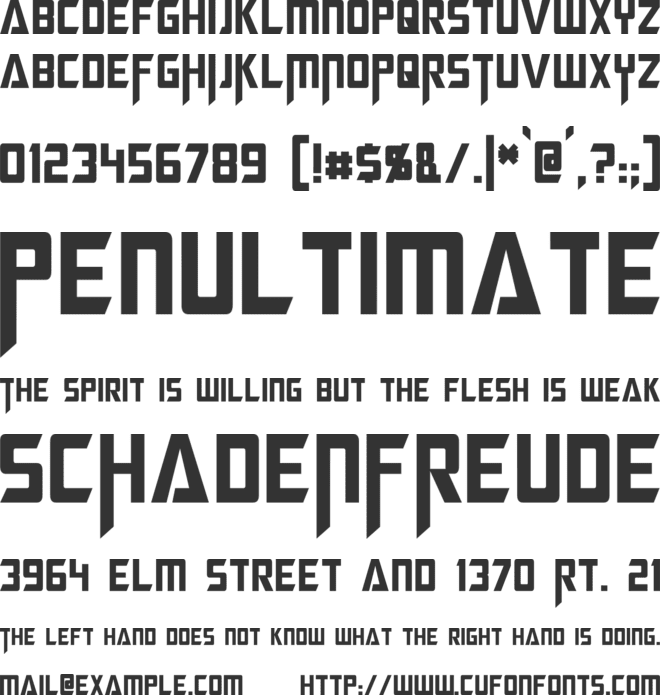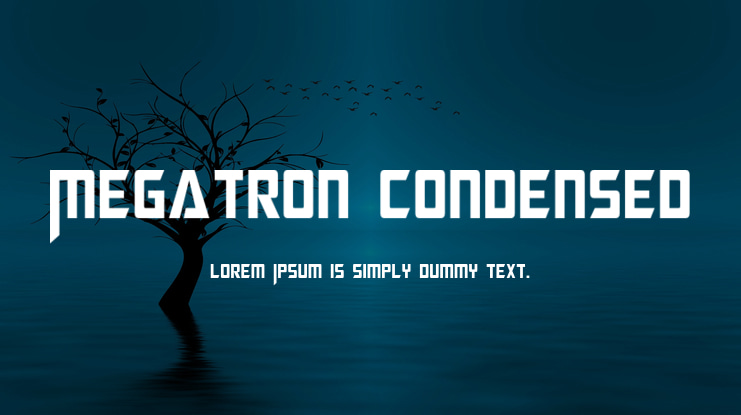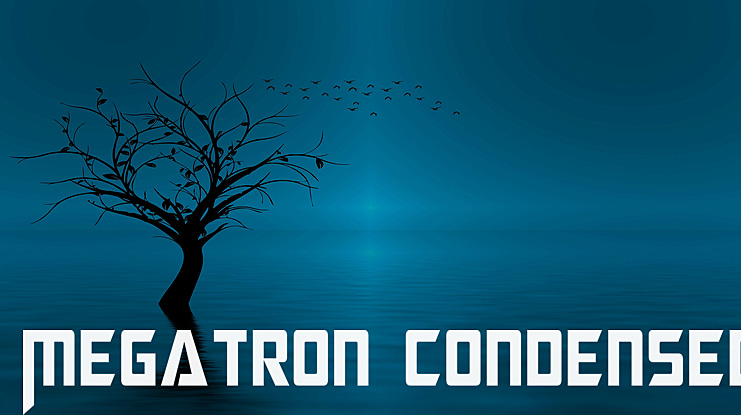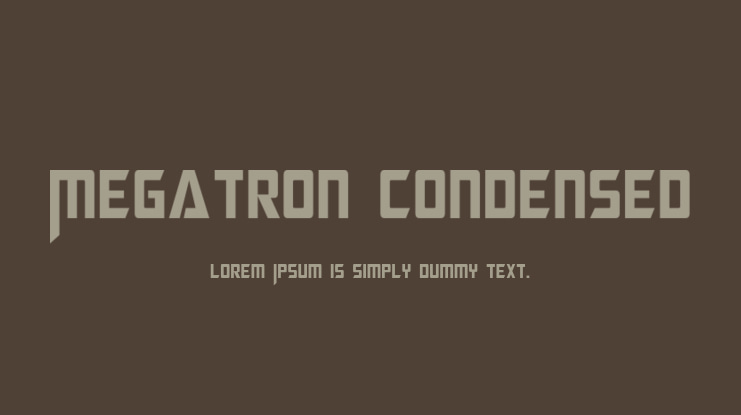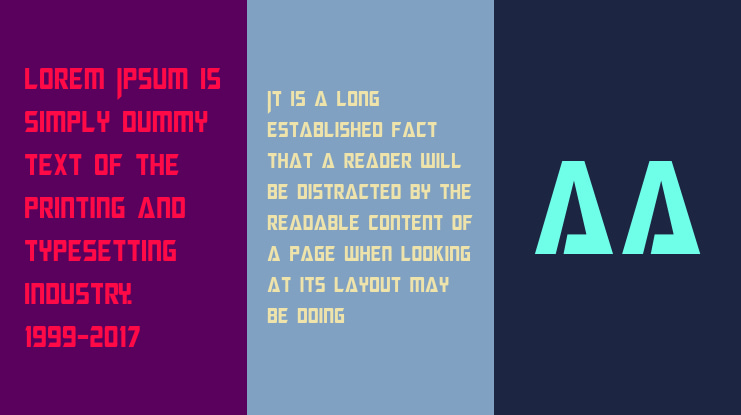
Megatron Condensed Font Family
Neale Davidson
Based on Micheal Bay's "Transformers" live-action movie logo text. Includes flourish caps, regular caps, numbers and punctuation as well as extended character set, euro. Left and right brackets have been replaced by the "movie" versions of the Autobot and Decepticon Insignia, respectively. Includes hollow, condensed and italic versions.
- Added OE and Per-Thousand glyphs
- Kerning cleanup